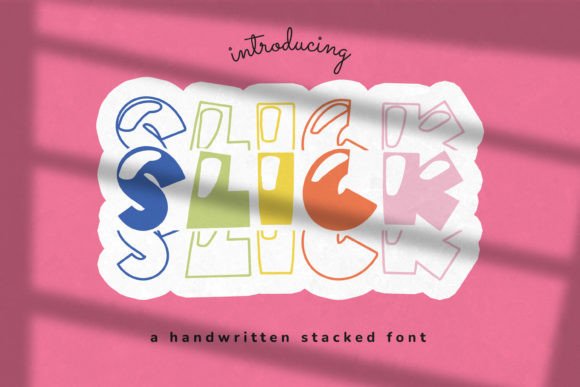
In a realm of visual expressions, where typography captivates hearts and minds, Slick Font emerges as a captivating display font family, a creation of the renowned WADLEN. This font is not merely a collection of letters; it's an embodiment of creativity, a testament to the boundless possibilities of human imagination. From custom designs to DIY crafts, Slick Font adds a touch of elegance and charm to any creation.
Unleash your inner artist and embark on a journey of self-expression. With Slick Font, your designs will radiate with a distinct personality, leaving an indelible mark on the hearts and minds of your audience. Be it a captivating logo, an eye-catching poster, or a heartfelt greeting card, Slick Font will elevate your message to new heights of visual appeal.
Imagine your words dancing across the page, adorned with the grace and sophistication of Slick Font. Each character, meticulously crafted, exudes an air of effortless charm, inviting your readers to delve into the depths of your message. This font is a storyteller, a weaver of tales, a symphony of shapes and curves that captivates the imagination.
With Slick Font, your designs will transcend the ordinary, becoming extraordinary expressions of your creativity. Let your imagination run wild, embrace the limitless possibilities, and craft visual masterpieces that leave an enduring legacy. Slick Font is not just a font; it's a gateway to a world of boundless creativity, waiting to be explored.
Welcome to the world of Slick Font, where typography artistry knows no bounds. Let your designs shine with the brilliance of this remarkable font family. Embrace the allure of Slick Font and watch your creations transform into captivating works of art.